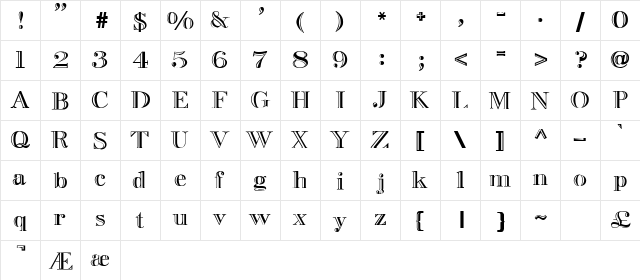
Gresham Regular
Design Context for Gresham Typeface
Gresham is a composed and adaptable typeface that performs quietly and consistently across a wide range of design contexts.